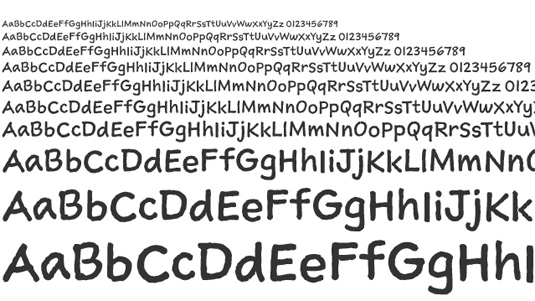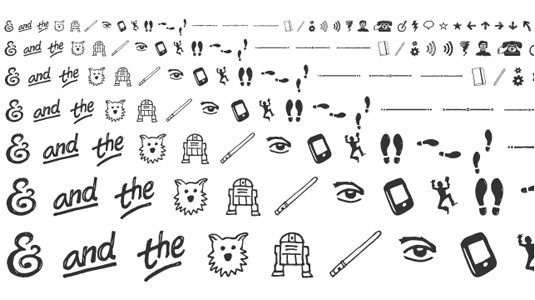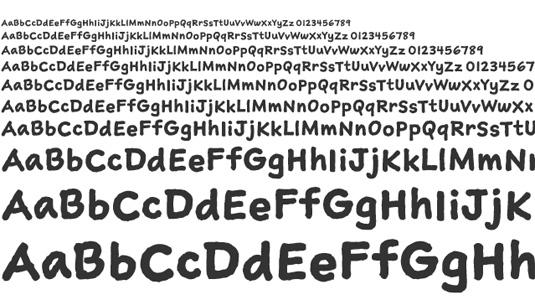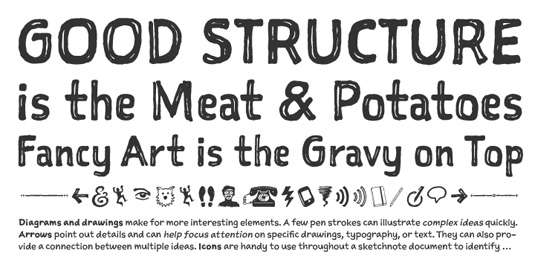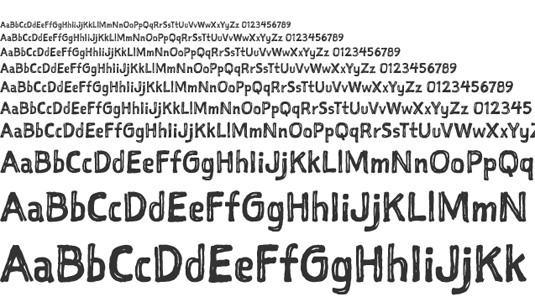
New handwriting font is a thing of beauty
Developed by the author of The Sketchnote Handbook, we love this new 'Sketchnote' typeface, inspired by actual handwriting and masterfully executed.
Despite there being some brilliant free fonts out there, the best fonts are usually worth paying for. And this new Sketchnote typeface, created by Mike Rohde, the author of The Sketchnote Handbook, is a great example.
The Sketchnote Handbook is a fully illustrated book and video, designed to teach people how to create their own sketchnotes. Inspired by this, the Sketchnote typeface is designed to be practical; to convey the human character and quirks of Rohde's normal handwriting and hand-drawn lettering with the benefits inherent in digital fonts.
The family is comprised of four fonts: Sketchnote Text in regular, bold and italic, plus Sketchnote Square, with some cute illustrations thrown in for good measure. A font that's wholly versatile, Sketchnote is a type we're sure you're going to love as much as we do.